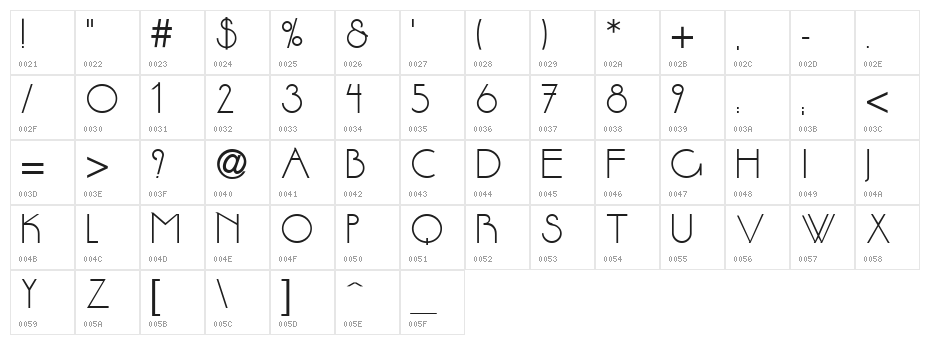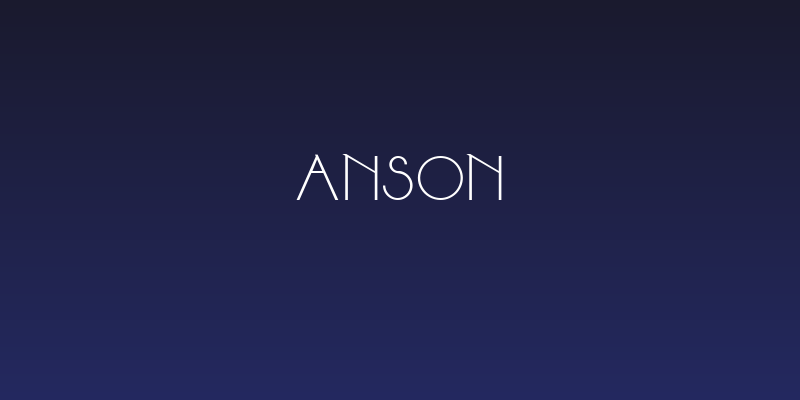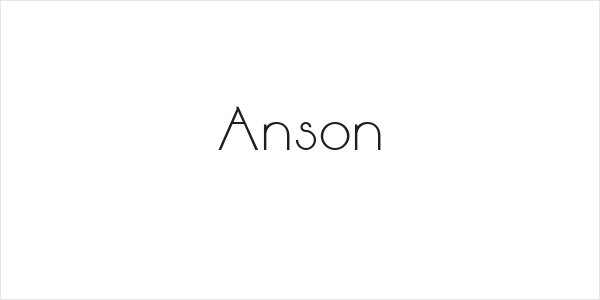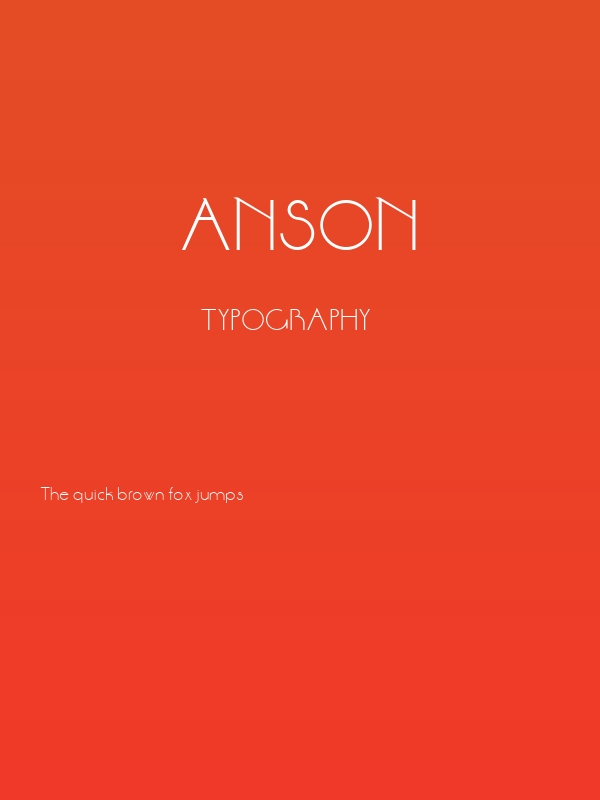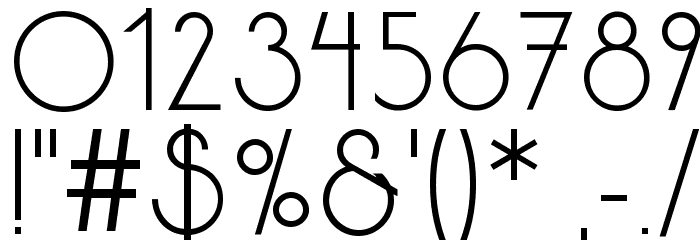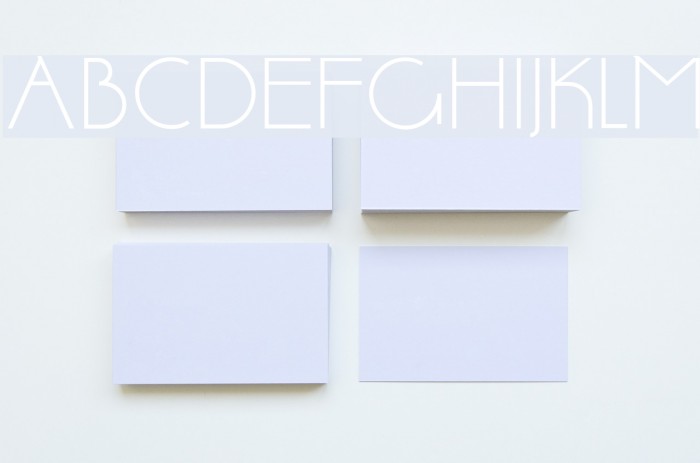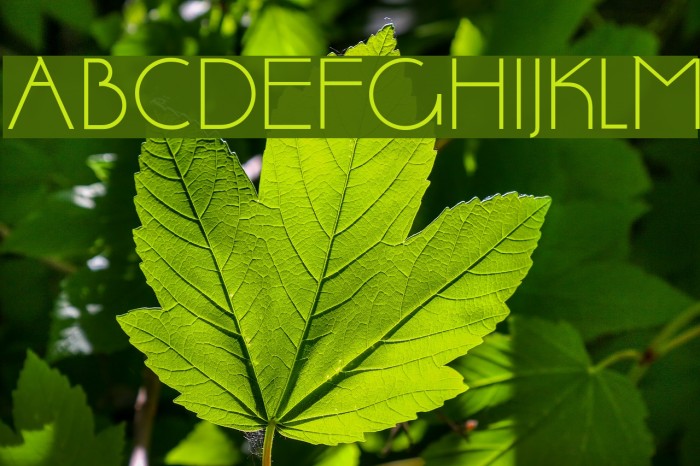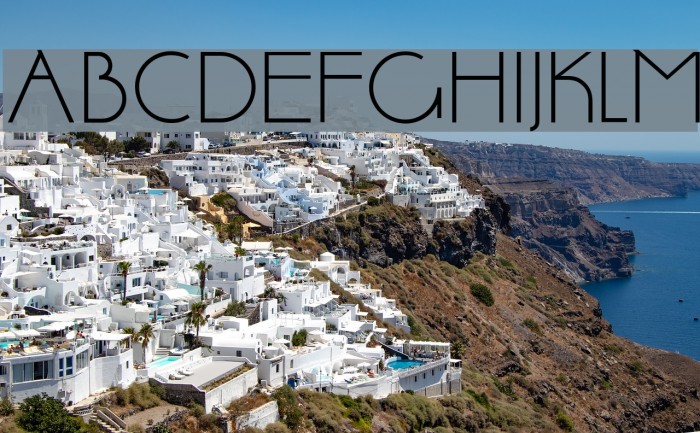
Anson Font
Anson Description
This font features a clean and geometric design, characterized by its thin, uniform strokes and minimalistic appearance. The uppercase letters are tall and narrow, with a consistent stroke width that gives a modern and sleek look. The lowercase letters maintain the same geometric style, with rounded edges that add a touch of softness to the overall design. The numerals are proportionate and align well with the letterforms, ensuring readability and balance. Special characters are designed to match the overall aesthetic, providing a cohesive look across all glyphs. This font's simplicity and clarity make it versatile for various design applications.
| Use Case | Headlines, Body text, Logos |
| Proposed Projects | Ideal for branding, editorial design, web design, and minimalist posters. |